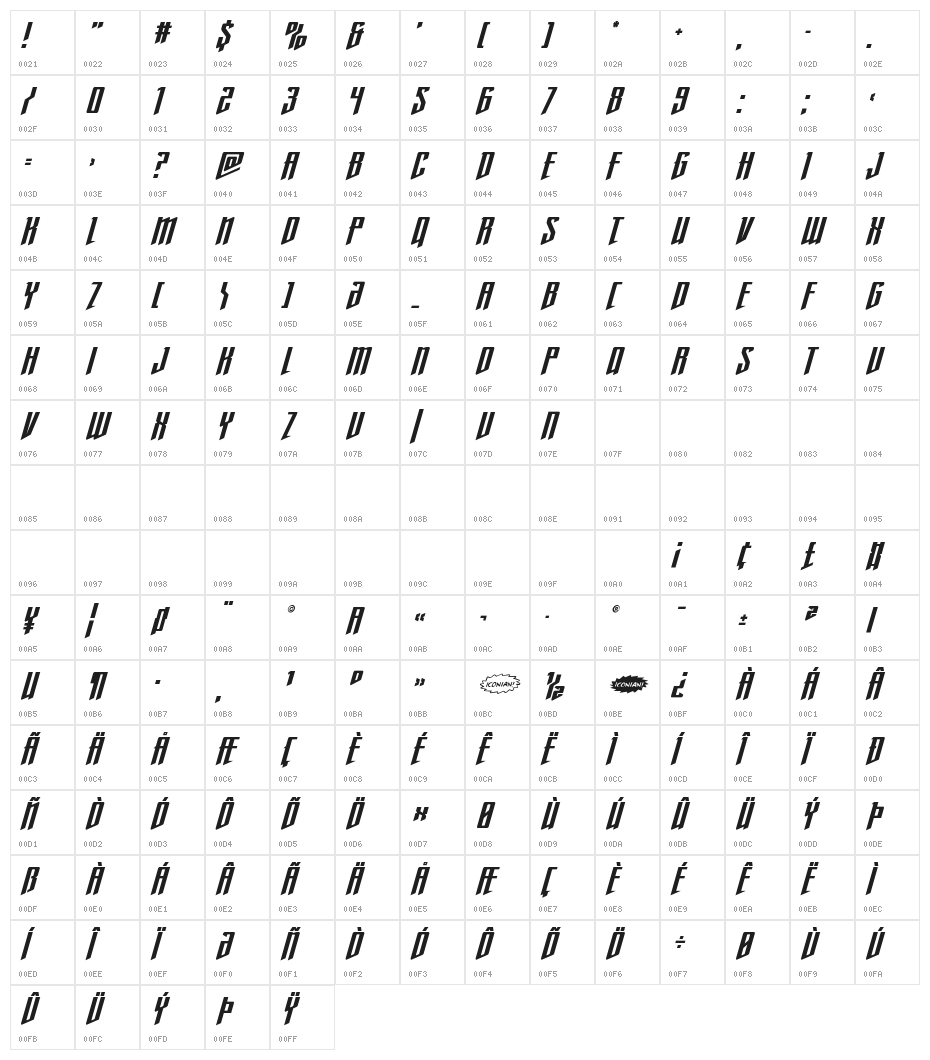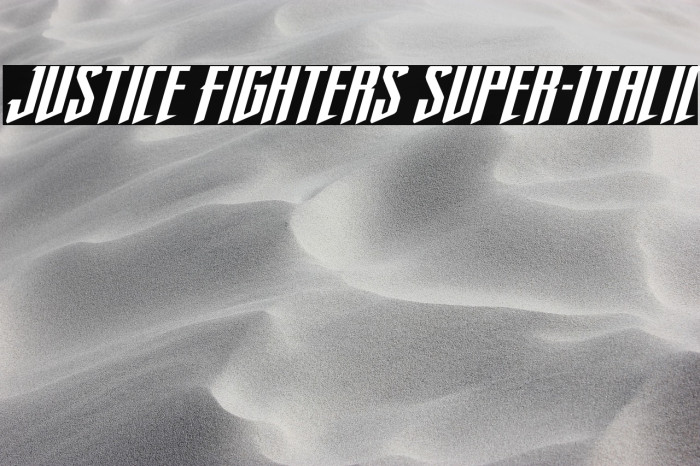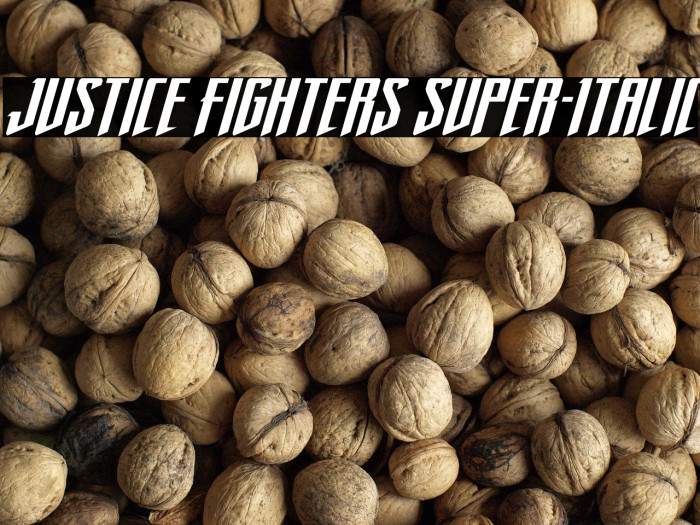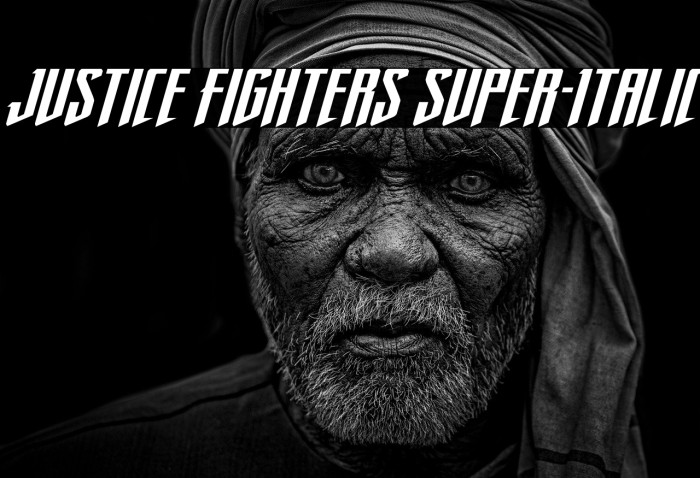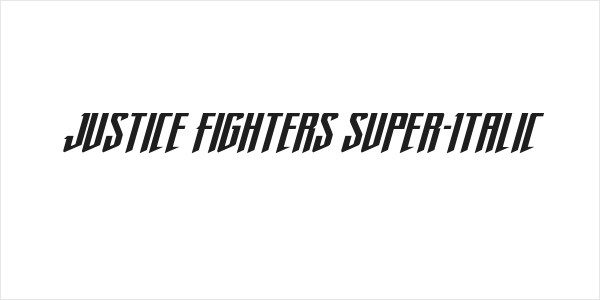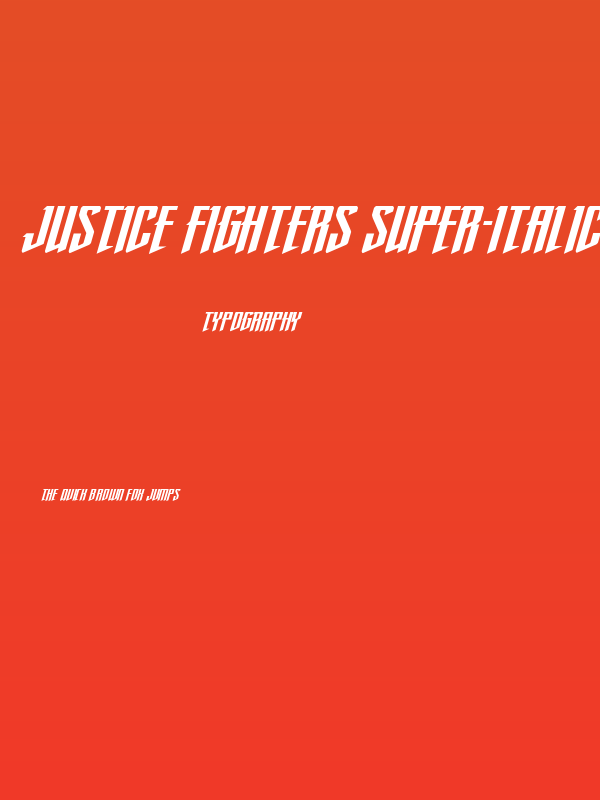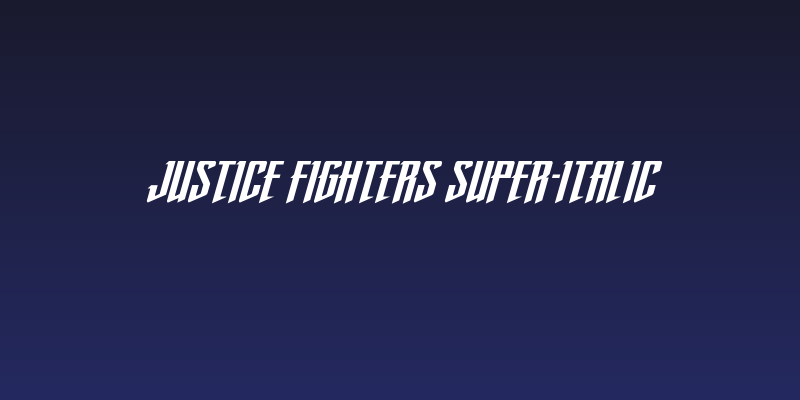
Justice Fighters Super-Italic Font
Justice Fighters Super-Italic Description
This font features a dynamic and energetic style with sharp, angular lines and a strong italic slant. The characters are bold and impactful, making them ideal for attention-grabbing designs. The uppercase and lowercase letters maintain a consistent style, with the uppercase being slightly more pronounced. Numbers and special characters are designed to match the overall aesthetic, ensuring a cohesive look across all text elements. The font's aggressive and modern appearance makes it suitable for projects that require a bold statement.
| Proposed Projects | Ideal for comic book titles, action movie posters, sports team logos, and dynamic branding materials. |